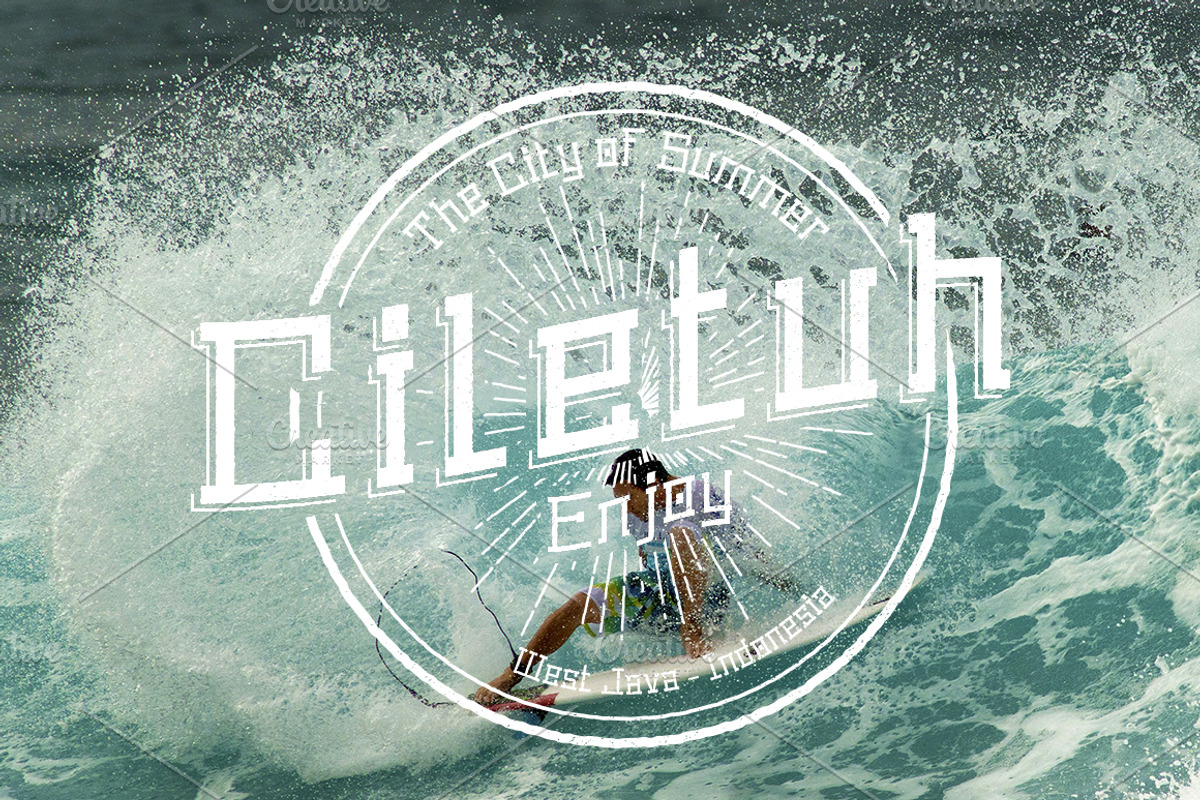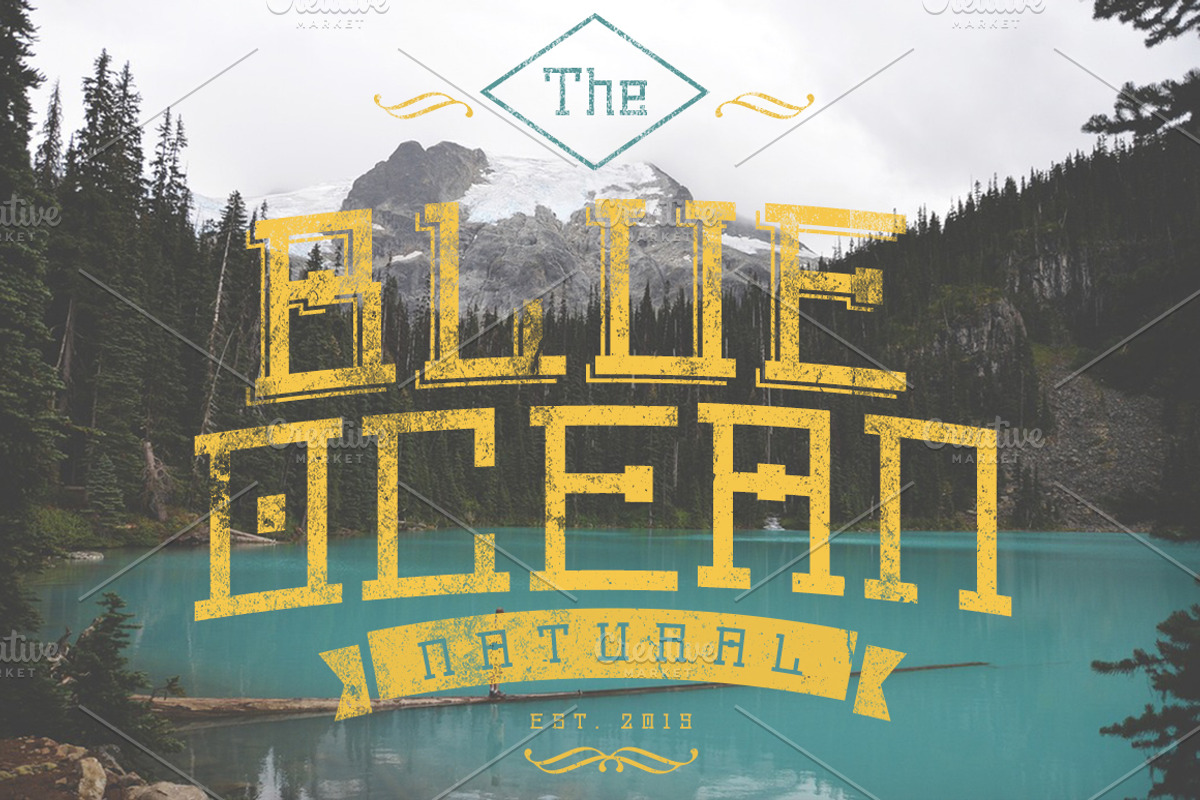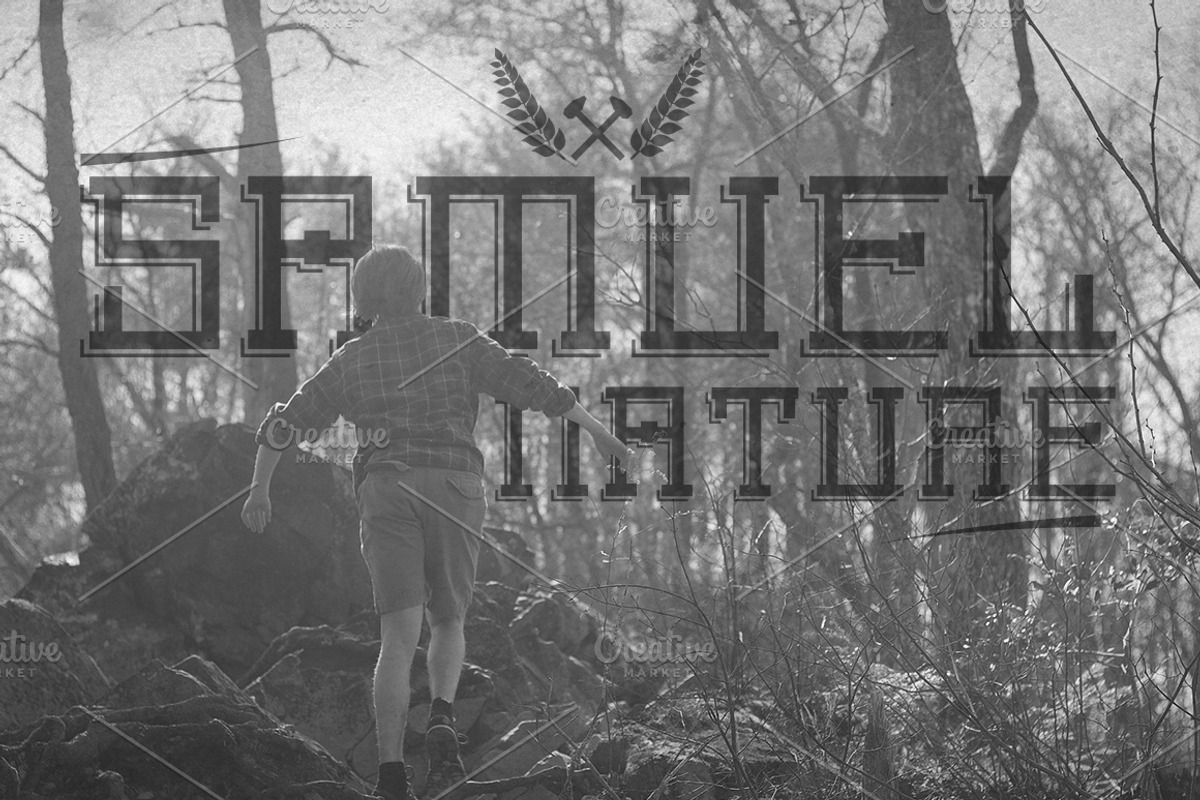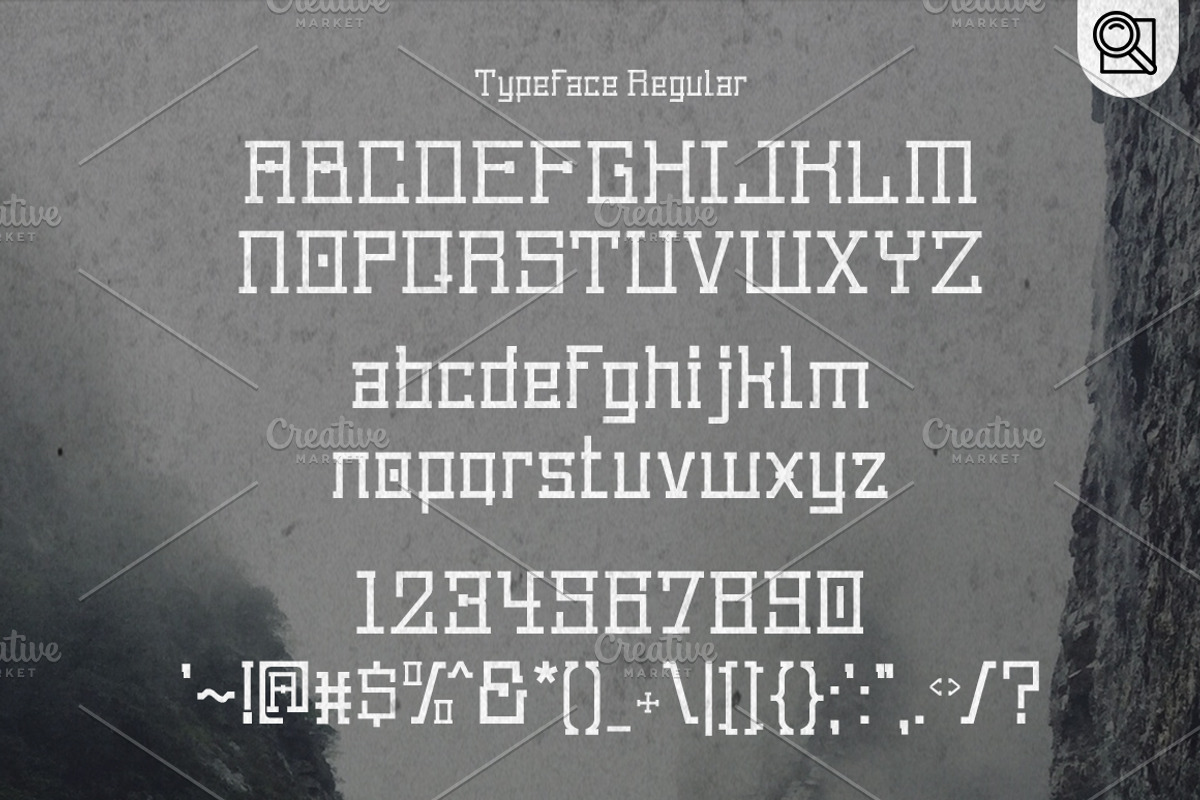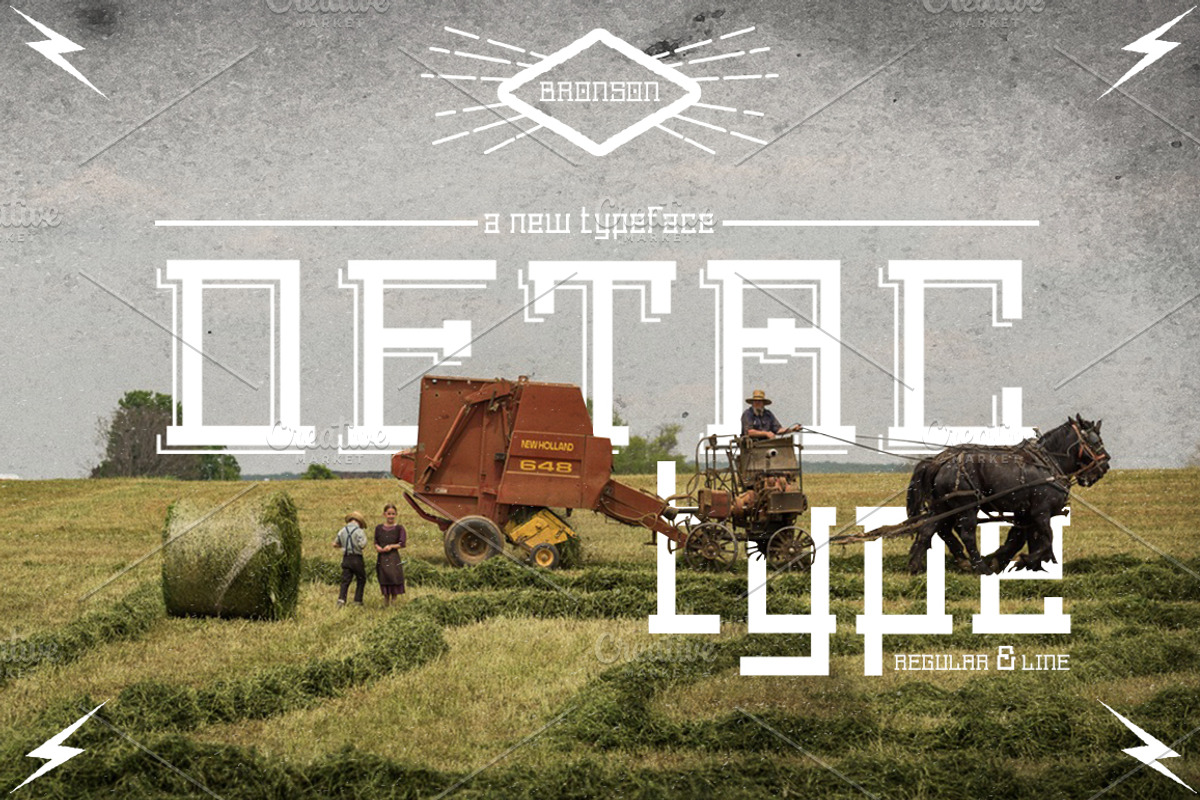
Detac Font
Detac Font by Magoo Studio is a font selected for branding, posters, packaging, typography.
- Detac typeface includes a full set of capital and lowercase letters, numerals and punctuation.Could help to good display, uses for labeling,
Detac Font by Magoo Studio fits naturally into Branding, posters, packaging, typography.